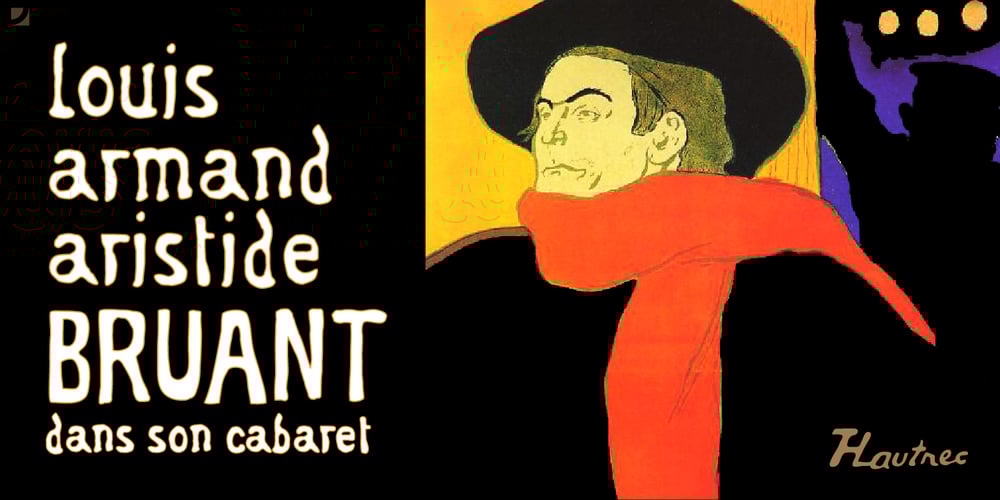
Aristide Font Family was designed by published by Jonahfonts. Aristide contains 2 styles and family package options. There are many fonts inspired by Toulouse-Lautrec. I felt this one was needed and tried to get that loose brush-stroke appearance typical of Toulouse’s style of his famous French Cabaret posters. Aristide Bruant a dancer and comedian made famous by Lautrec’s posters can now be further immortalized with this font.